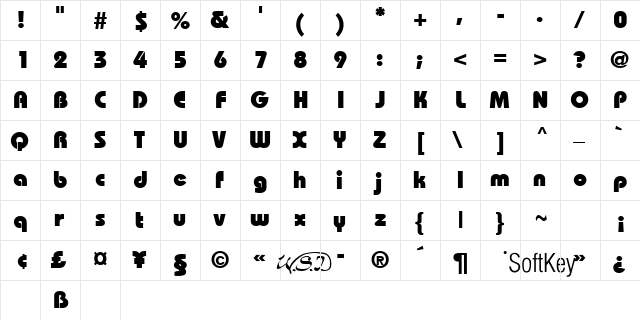
Brie Black Regular
Design Context for Brie Black Typeface
Brie Black takes a measured approach to typography — its balanced proportions and neutral character make it a reliable workhorse for both digital and print work.